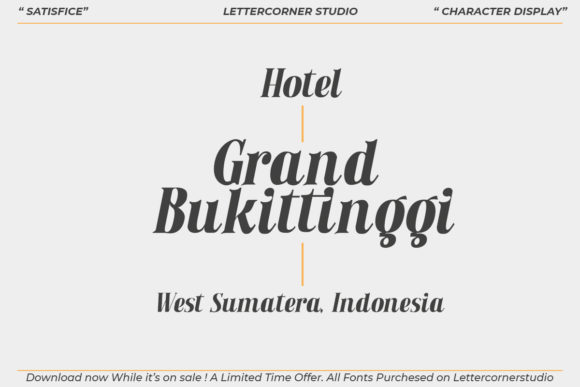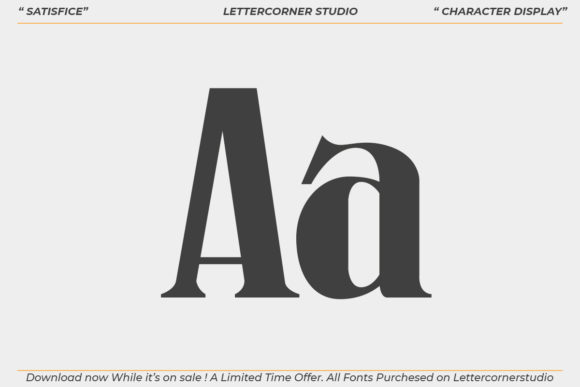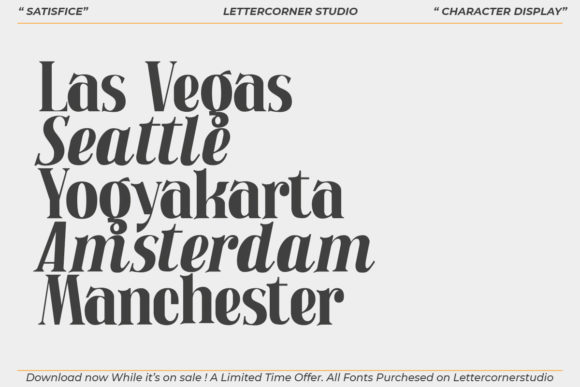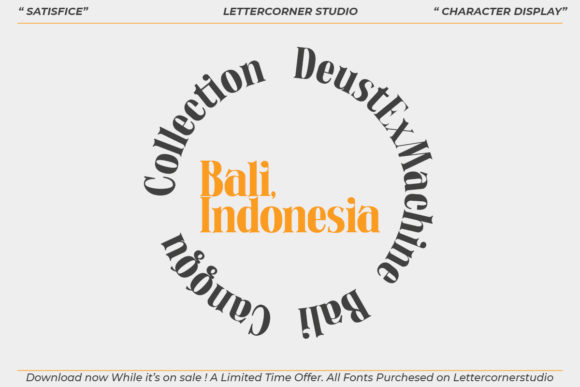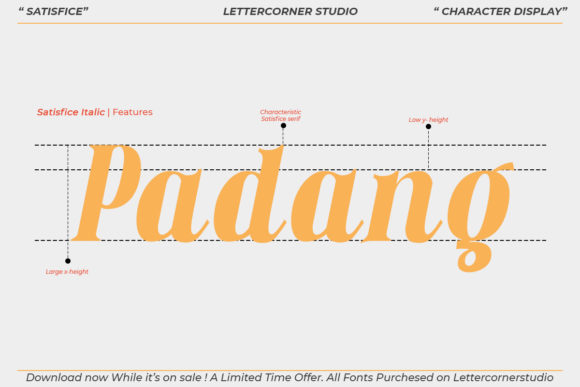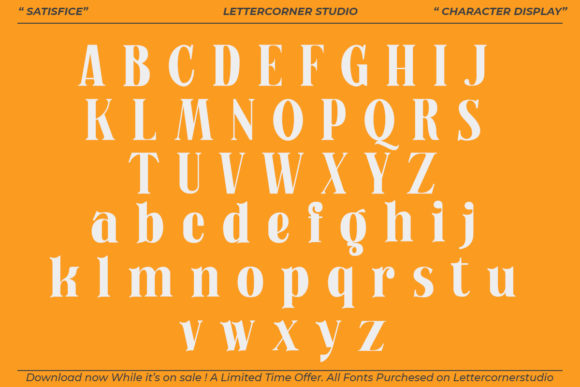
Introduction to Satisfice Font
Have you ever stared at a blank canvas, searching for the perfect font to bring your creative project to life? The struggle is real, but what if you stumbled upon a font that not only adds a touch of nostalgia but also exudes confidence and dynamism? Enter the Satisfice Font, a stunning retro-styled display font that’s about to revolutionize your design game.
With its bold and eye-catching design, the Satisfice Font is a game-changer for designers looking to add a high-quality, free download to their creative arsenal. Whether you’re working on a project that requires a transparent background or a design that needs a bold statement, this font is sure to deliver. In this article, we’ll delve into the world of Satisfice Font and explore its unique features, making it an invaluable resource for designers of all levels.
Satisfice Font
- Features a clean and minimalist design, suitable for a wide range of creative projects.
- Includes a comprehensive character set, supporting multiple languages.
Honest Review: Satisfice Font
I recently came across the Satisfice Font and was excited to give it a try. As a designer, I’m always on the lookout for high-quality design resources to elevate my creative projects.
The transparent background option allows for seamless integration with different design elements, making it easy to customize to your needs. I also appreciate the high-quality design that goes into every aspect of the font, from the letterforms to the ligatures.
What could be improved: ⚠️ While the Satisfice Font is a great addition to any design library, I did find that the font family is a bit limited in terms of styles and weights. For more complex design projects, you may need to supplement with additional fonts.
Overall, I’m impressed with the Satisfice Font and would definitely recommend it to designers looking for a reliable and versatile design resource.
- Modern aesthetic
Satisfice Font
The Satisfice Font is a versatile and high-quality design resource perfect for any creative project. With its transparent background, it can be easily integrated into various design tools to enhance your work.
Tips for Getting the Most Out of Satisfice Font
To get the most out of the Satisfice Font, use it in combination with other design elements, such as colors and graphics, to create a cohesive and visually appealing design. Experiment with different font sizes, styles, and colors to find the perfect look for your project.
The Satisfice Font is perfect for a variety of creative projects, including branding, marketing materials, and digital products. It can also be used for personal projects, such as blog posts, social media graphics, and more.